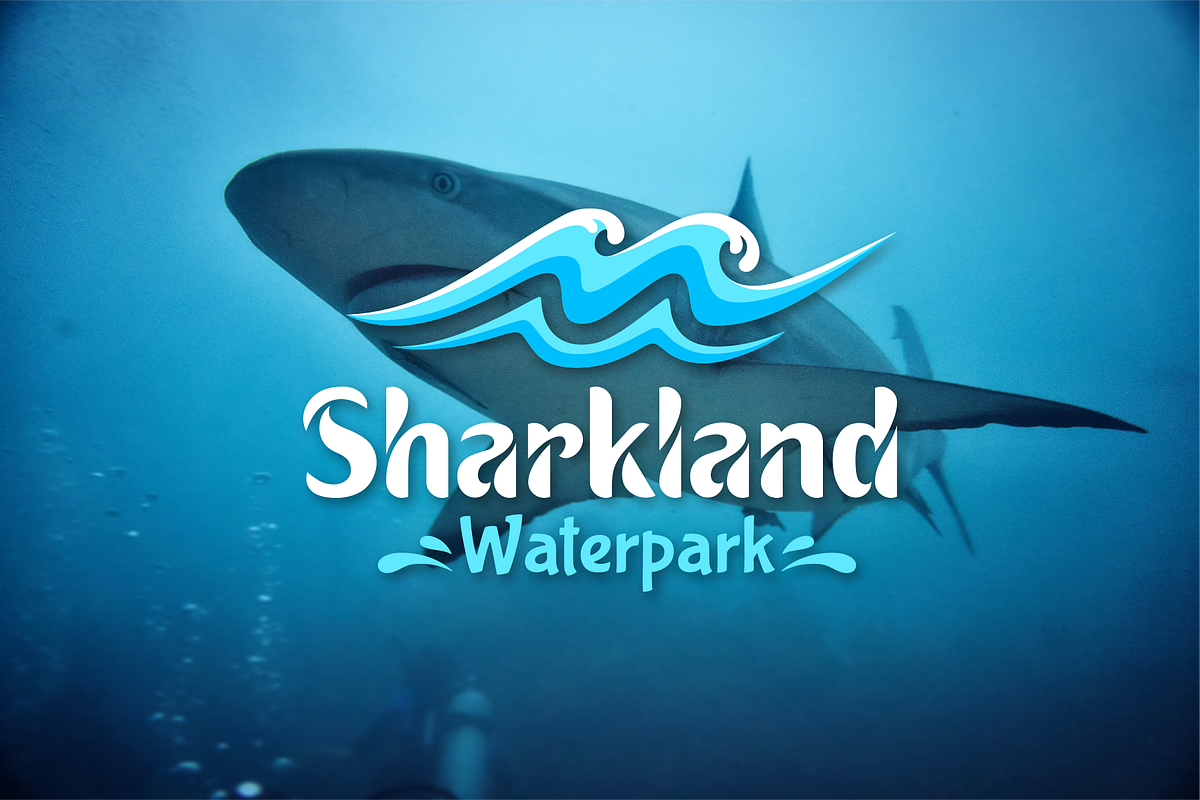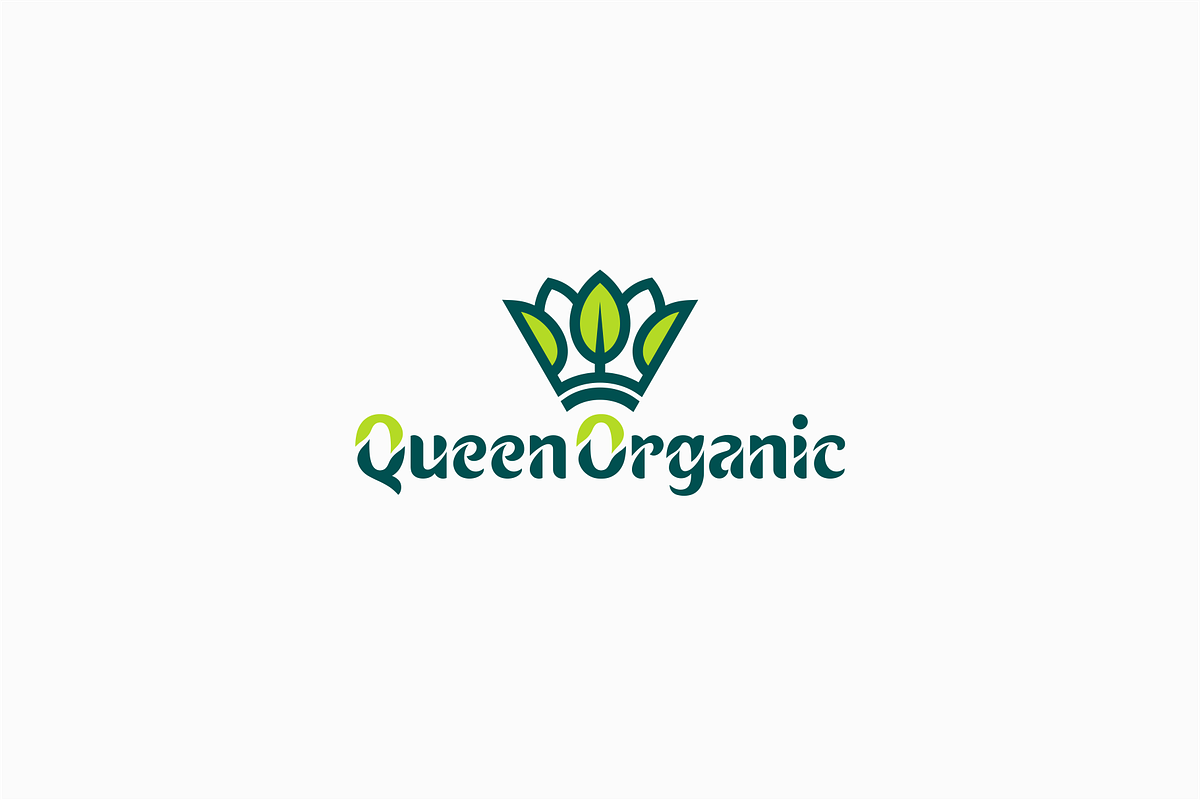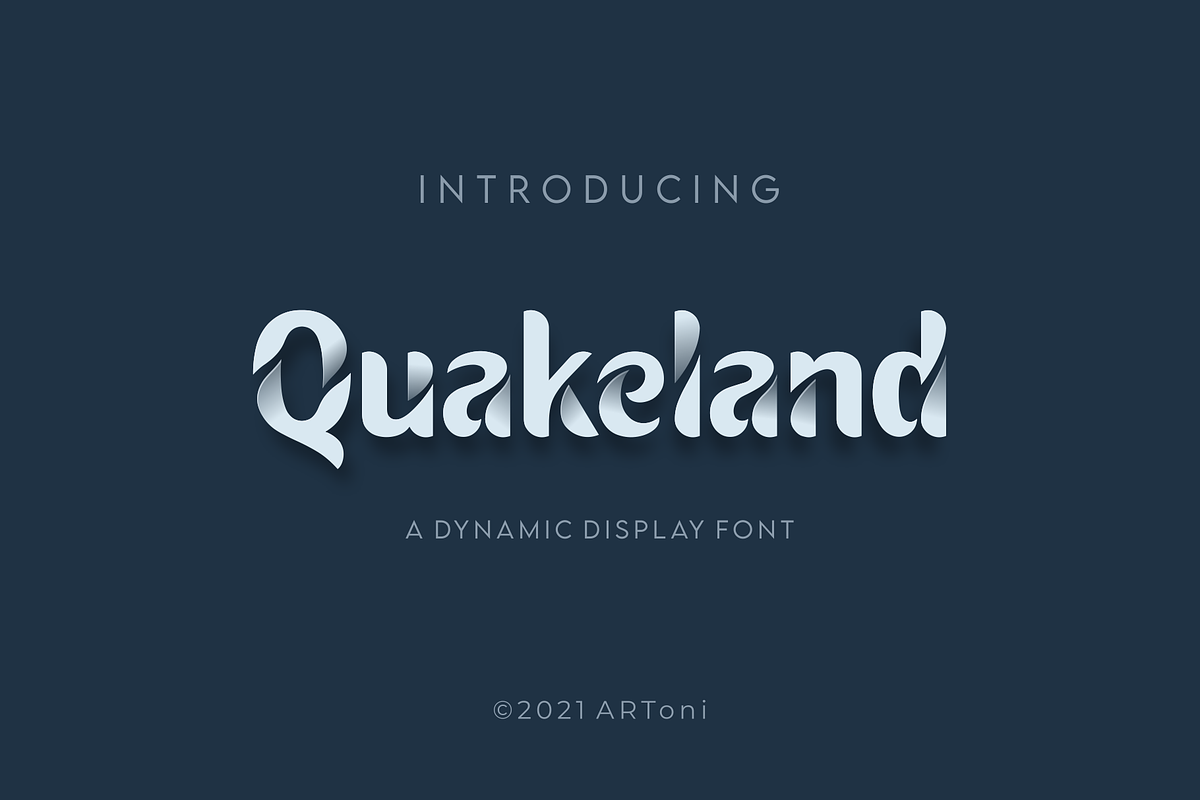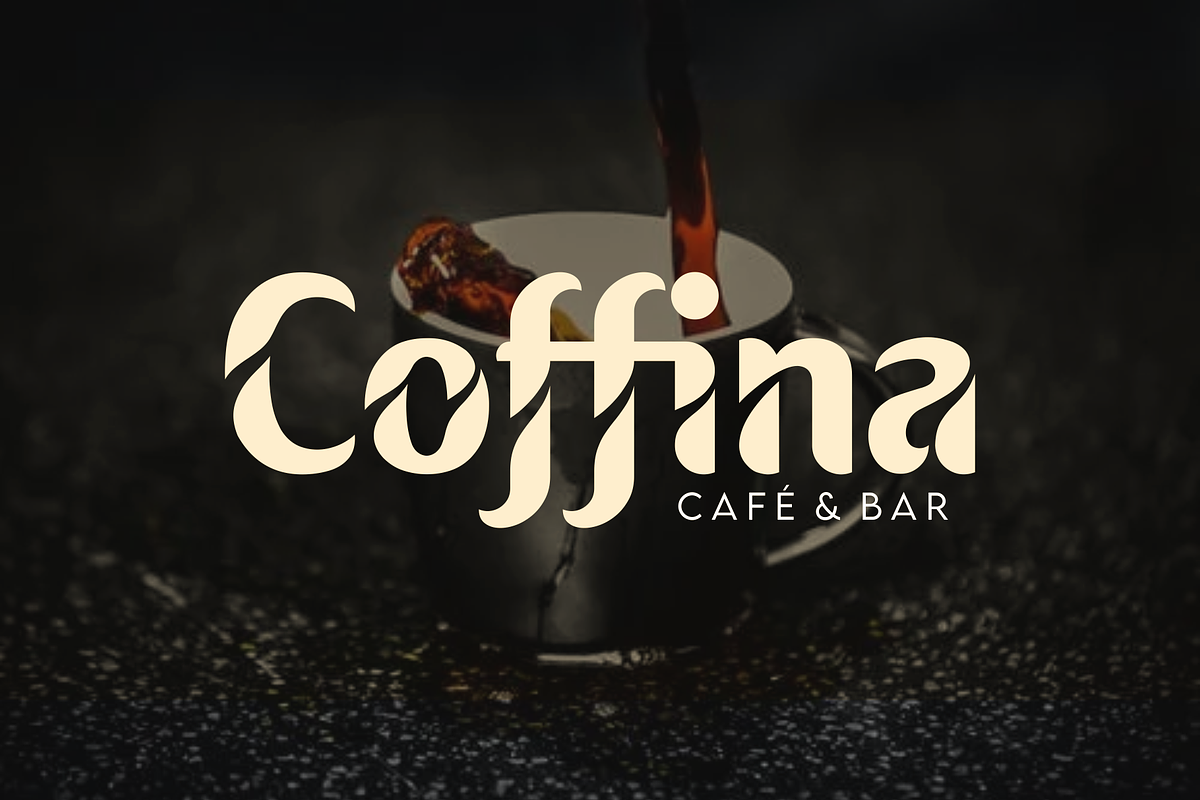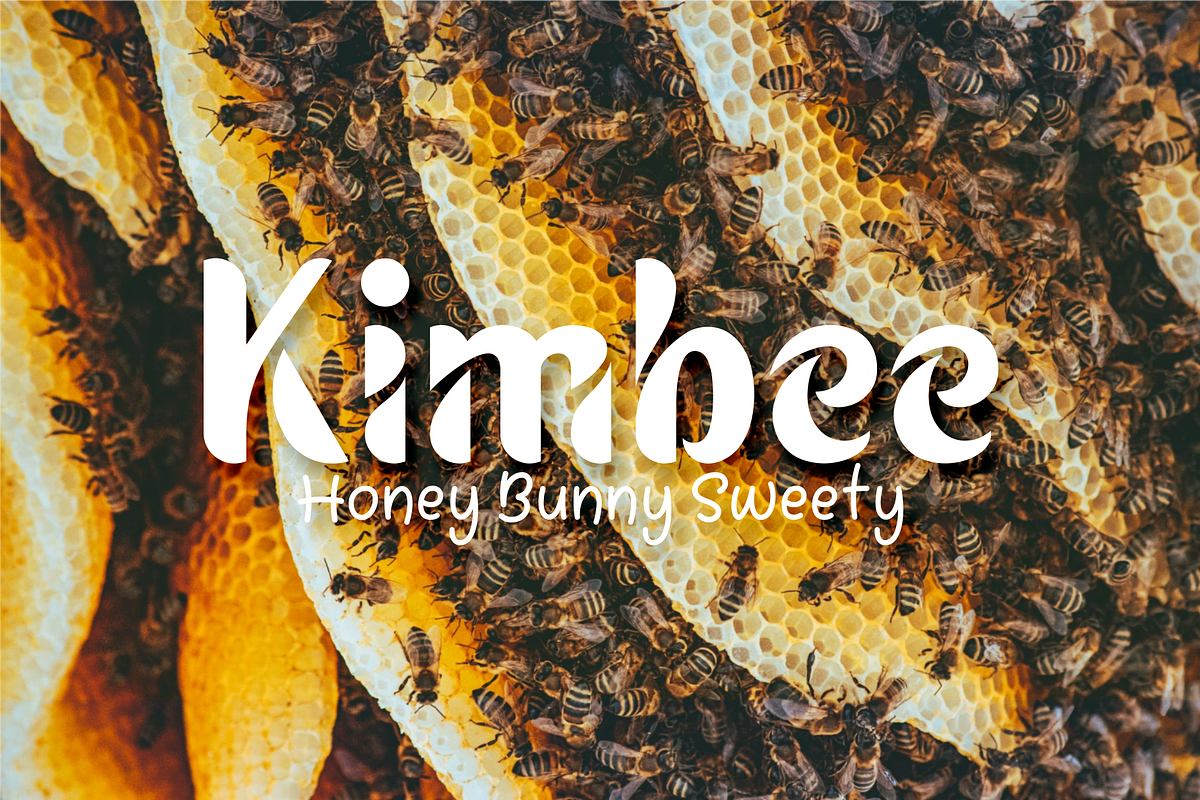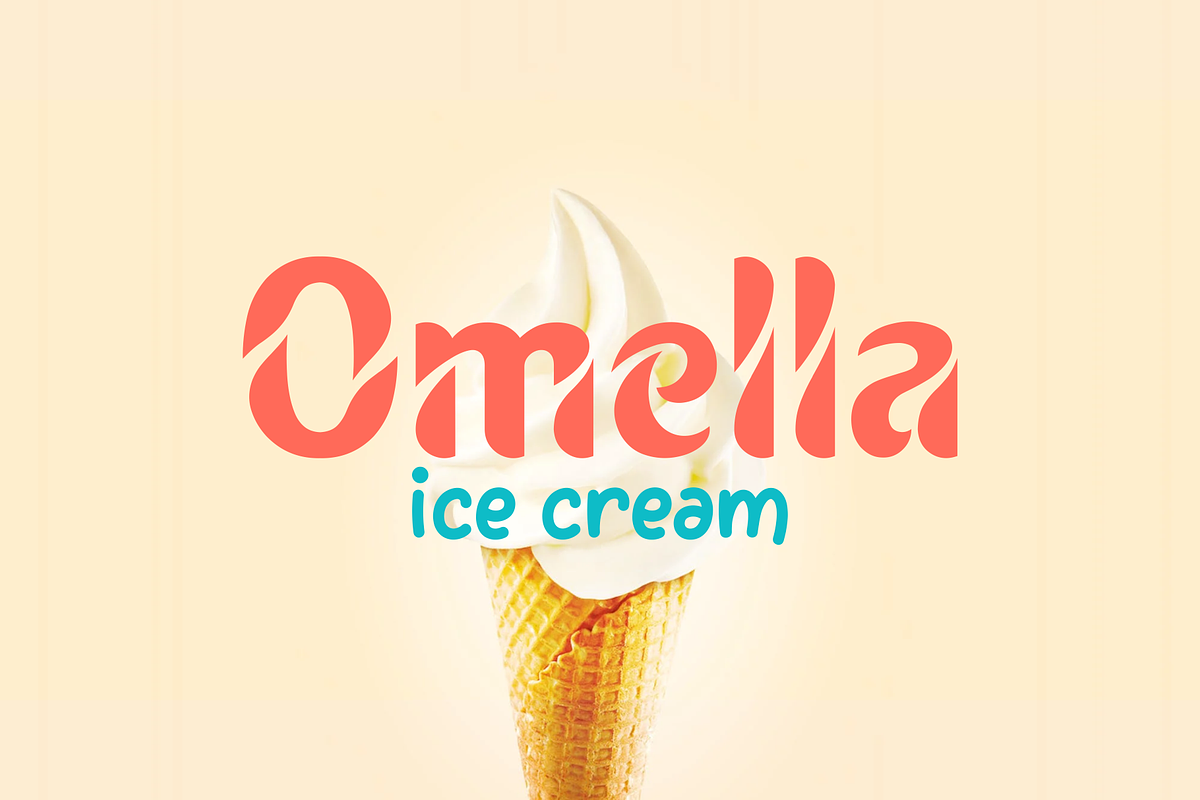
Quakeland
Quakeland is a cool, modern and stylish display font. Add this trendy font to your web designs, logos or pretty much anything that requires a smart, cool touch.